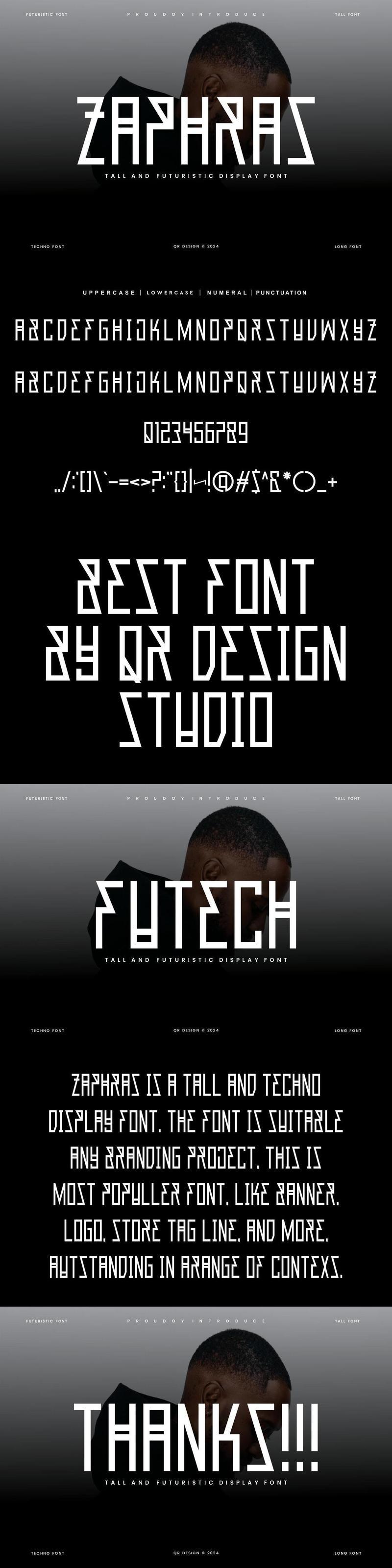
Zaphras – Tall & Futuristic Font DKT33W9
**Zaphras – Tall & Futuristic Font** is a bold and authentic display font.
The font is suitable for any branding project like poster, logo, sport, and many more.
Outstanding in a wide range of contexts.